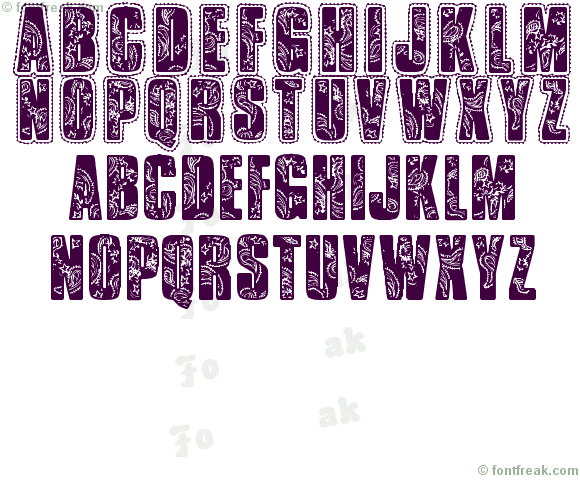
VTKS Bandana
The VTKS Bandana font, designed by Douglas Vitkauskas, is a distinctive display typeface that captures the essence of playful and decorative typography. This font falls into the decorative category, making it an excellent choice for projects that require a unique and eye-catching style. The VTKS Bandana features a bold stroke weight with a high contrast that enhances its visibility, while the spacing between characters adds to its readability, allowing it to stand out in various contexts. Its design incorporates intricate decorative elements reminiscent of traditional bandana patterns, which add a layer of personality and charm.
This font is particularly well-suited for a range of creative applications. It can be used effectively in wedding invitations, where its playful nature can evoke joy and celebration. Additionally, VTKS Bandana works wonderfully for movie posters, especially for films that emphasize adventure or a whimsical storyline. Restaurant menus can also benefit from this font, as it adds a touch of flair that can attract diners' attention. Furthermore, graphic designers looking for an element of fun in branding projects will find this font to be an engaging choice.
Targeted towards graphic designers, small business owners, and content creators, the VTKS Bandana font free download offers an opportunity to infuse projects with a distinctive style without the burden of licensing fees. Its unique character set not only elevates the visual appeal of any design but also conveys a sense of creativity and individuality. In a crowded market of typefaces, VTKS Bandana stands out for its ability to blend artistry with functionality, making it a valuable addition to any designer's toolkit.